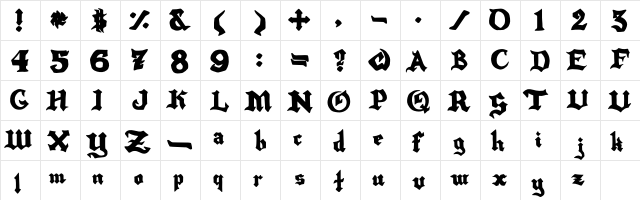
Wolfpack Halloweed Regular
| Designer | Afterthem Studio |
Design Context for Wolfpack Halloweed Typeface
Wolfpack Halloweed is a composed and adaptable typeface that performs quietly and consistently across a wide range of design contexts.